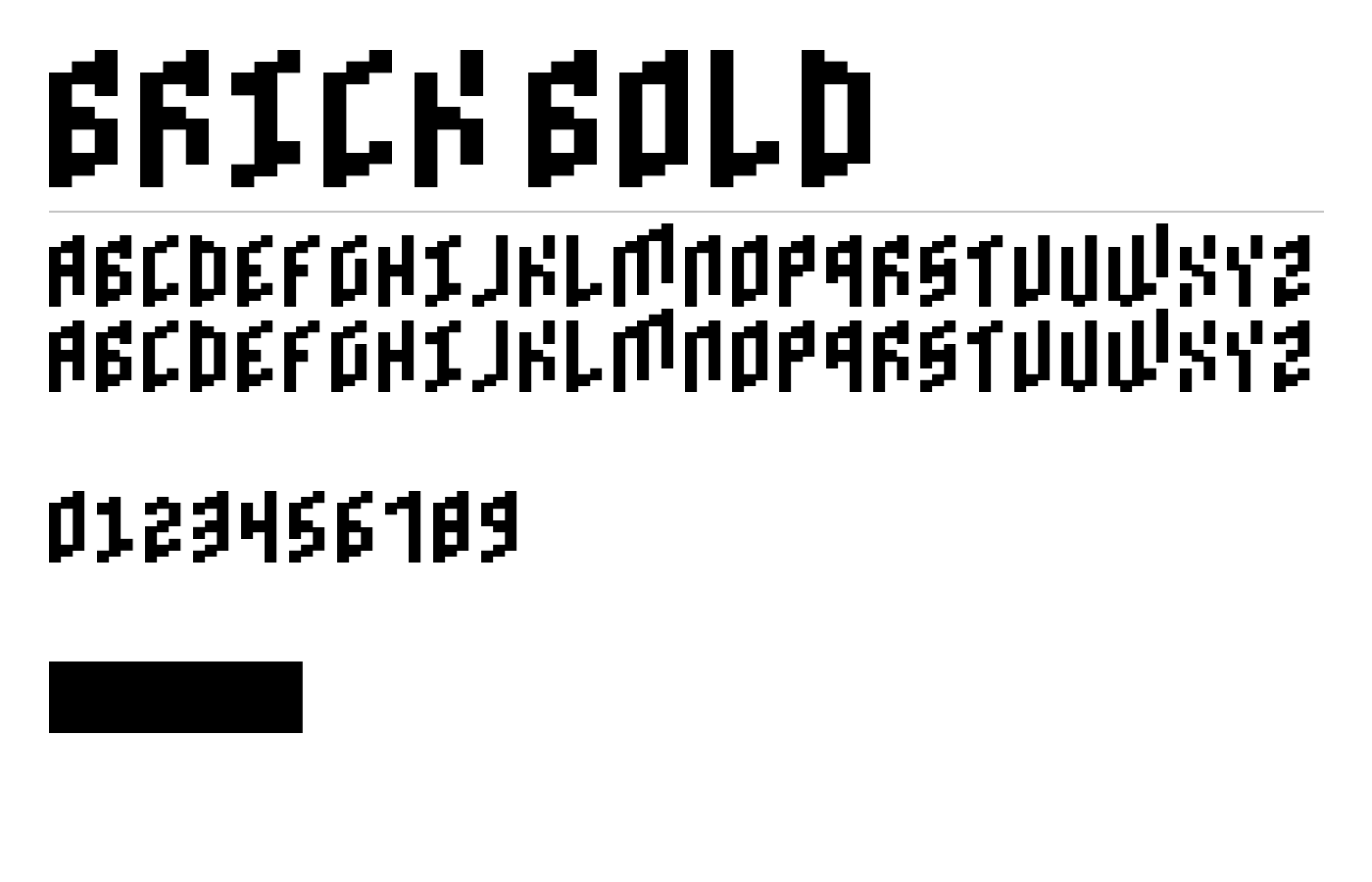
Brick Bold is a distinctive sans serif display font characterized by its bold, blocky, and pixelated style, resembling digital or retro video game typography. Featuring uniform stroke weight and sharp, geometric edges, this font carries a modern, industrial vibe with a playful, tech-inspired personality, making it perfect for posters, headlines, branding, and any design seeking a bold, attention-grabbing look with a nostalgic twist. Its compact letterforms and consistent spacing enhance readability while maintaining a striking visual impact.
Brick Bold Font
About Brick Bold Font